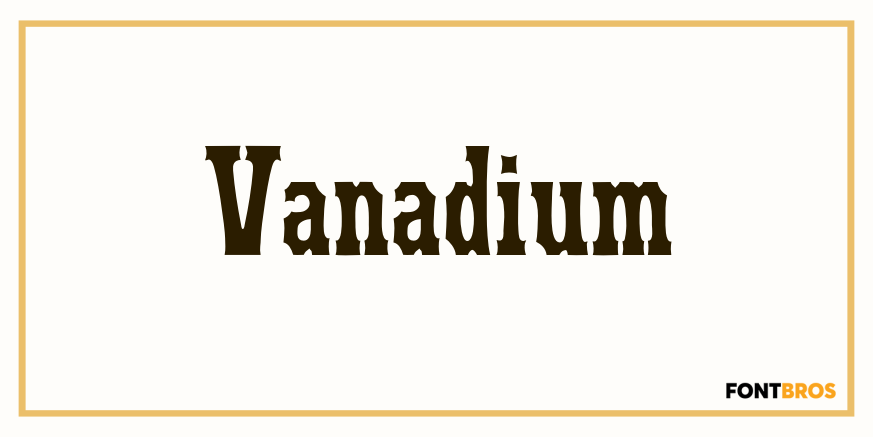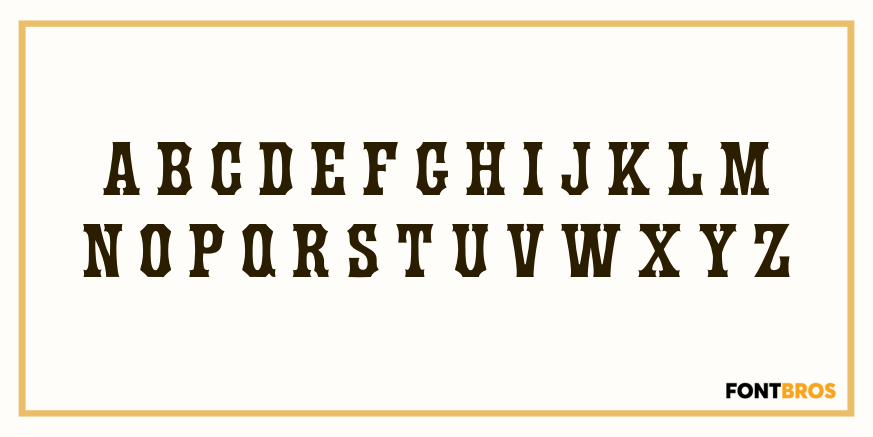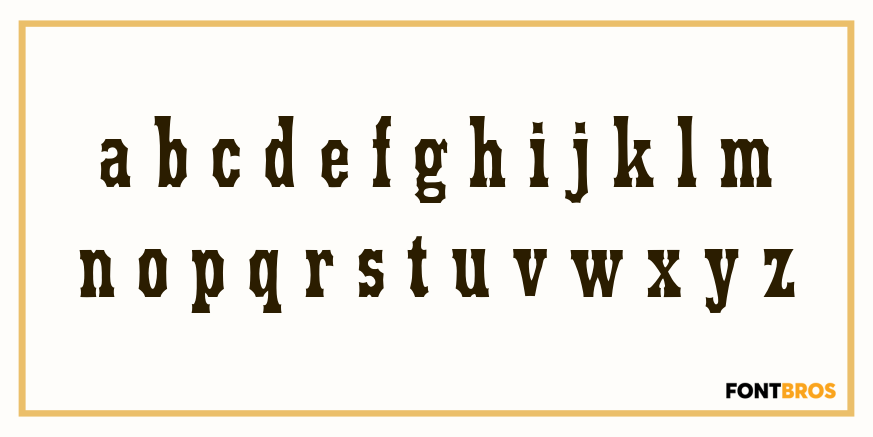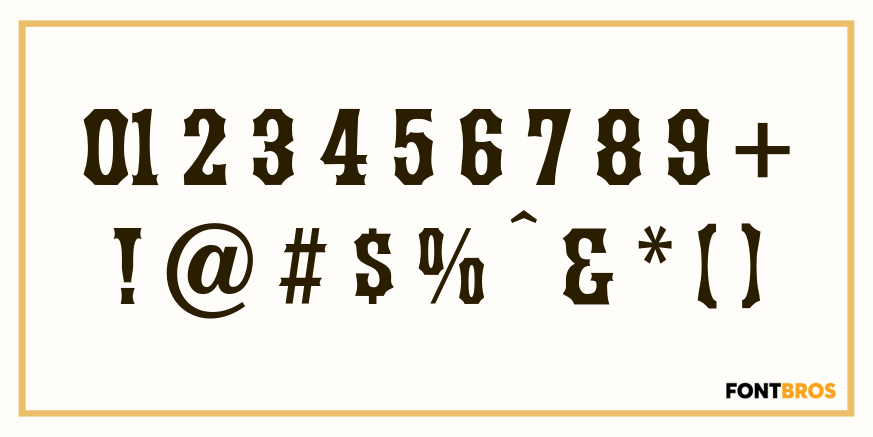
Vanadium
Vanadium is a bold, rugged display font with a strong vintage personality and plenty of visual bite. Its heavy slab-like letterforms, sharp cut-ins, and weathered western-inspired details give it the feel of old signage, frontier posters, saloon branding, and antique packaging.
Designed to make a statement, Vanadium works best in headlines, logos, labels, posters, apparel, book covers, and themed promotional graphics where you want the typography to feel sturdy, distinctive, and full of character. The uppercase letters carry a commanding presence, while the lowercase adds a slightly rough-hewn charm that keeps the font from feeling too polished.
Whether you’re creating a western-style brand, a retro product label, or a bold display piece with an old-world edge, Vanadium brings a tough, memorable look that stands out right away.